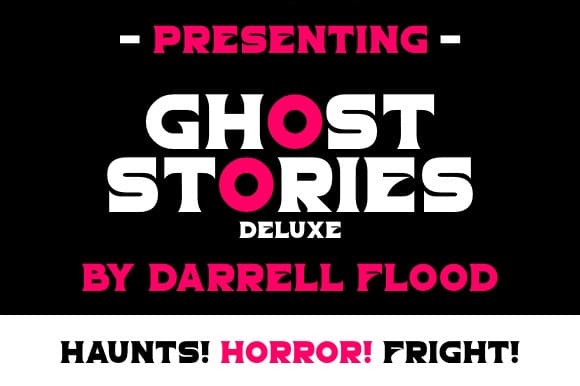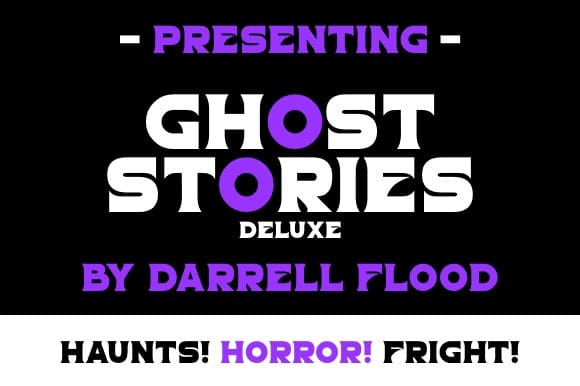
Ghost Stories Deluxe Font
Ghost Stories Deluxe Font is a bold serif font with spiky curves and a distinct horror flavor. Perfect for scary stories, Halloween themes and general fiction use.